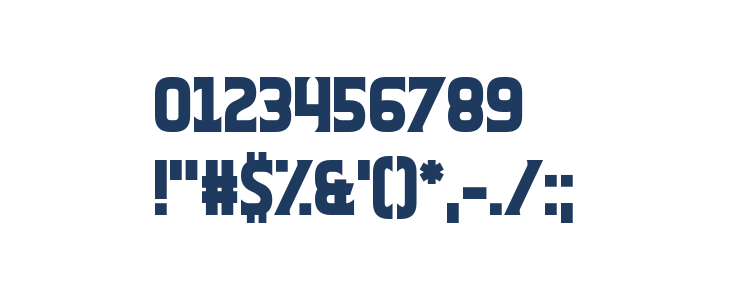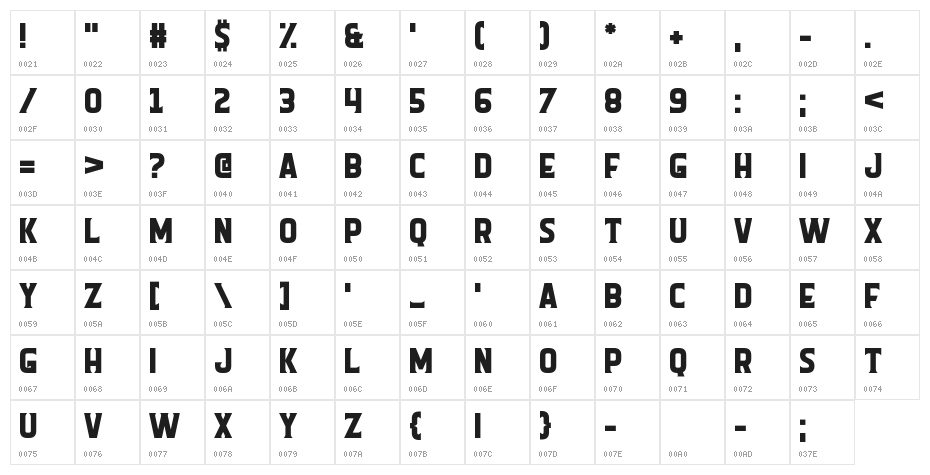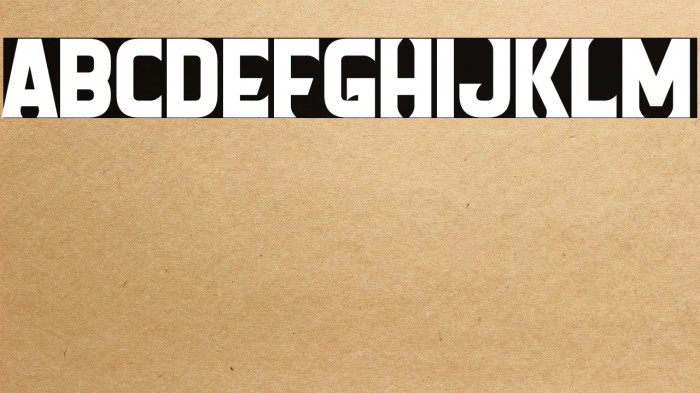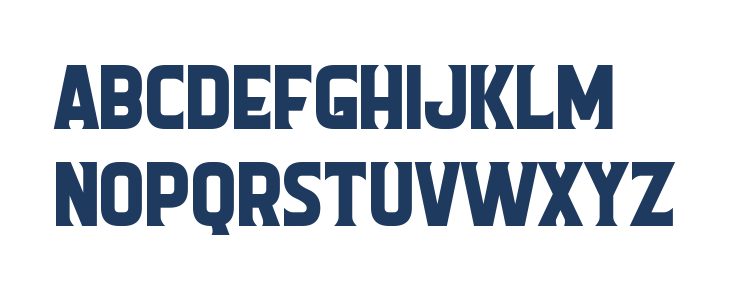
Homunculus Font
Homunculus Description
This font exhibits a bold and impactful design, characterized by thick, uniform strokes and a strong geometric structure. The uppercase letters are robust and commanding, with sharp angles and a modern aesthetic. The numerals are equally bold, maintaining consistency with the overall style. Special characters are designed to complement the alphabet, ensuring a cohesive look across all glyphs. The font's design is ideal for making a statement, with its high visibility and striking appearance.
| Proposed Projects | Ideal for headlines, posters, branding, and any project requiring a bold, impactful typeface. |